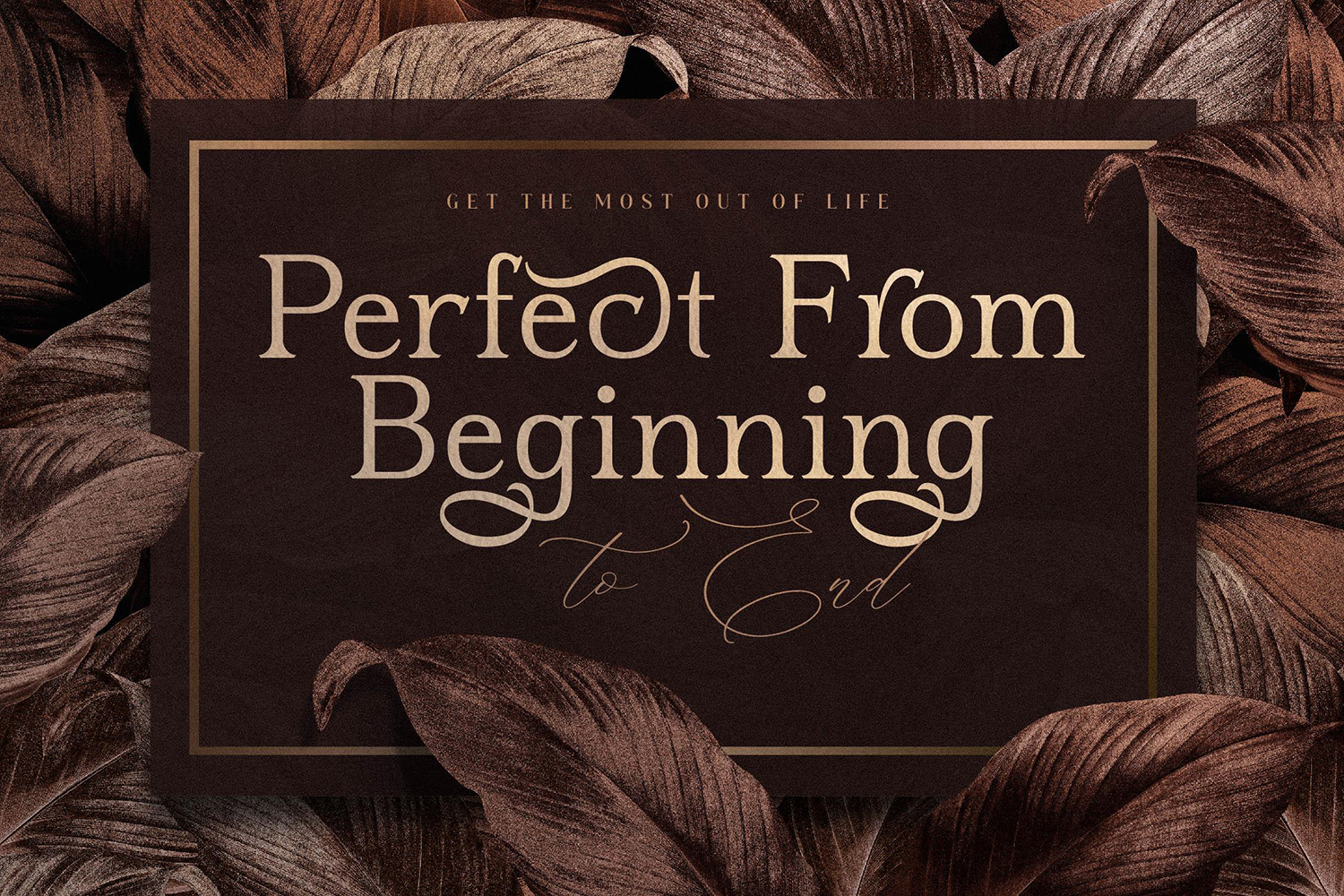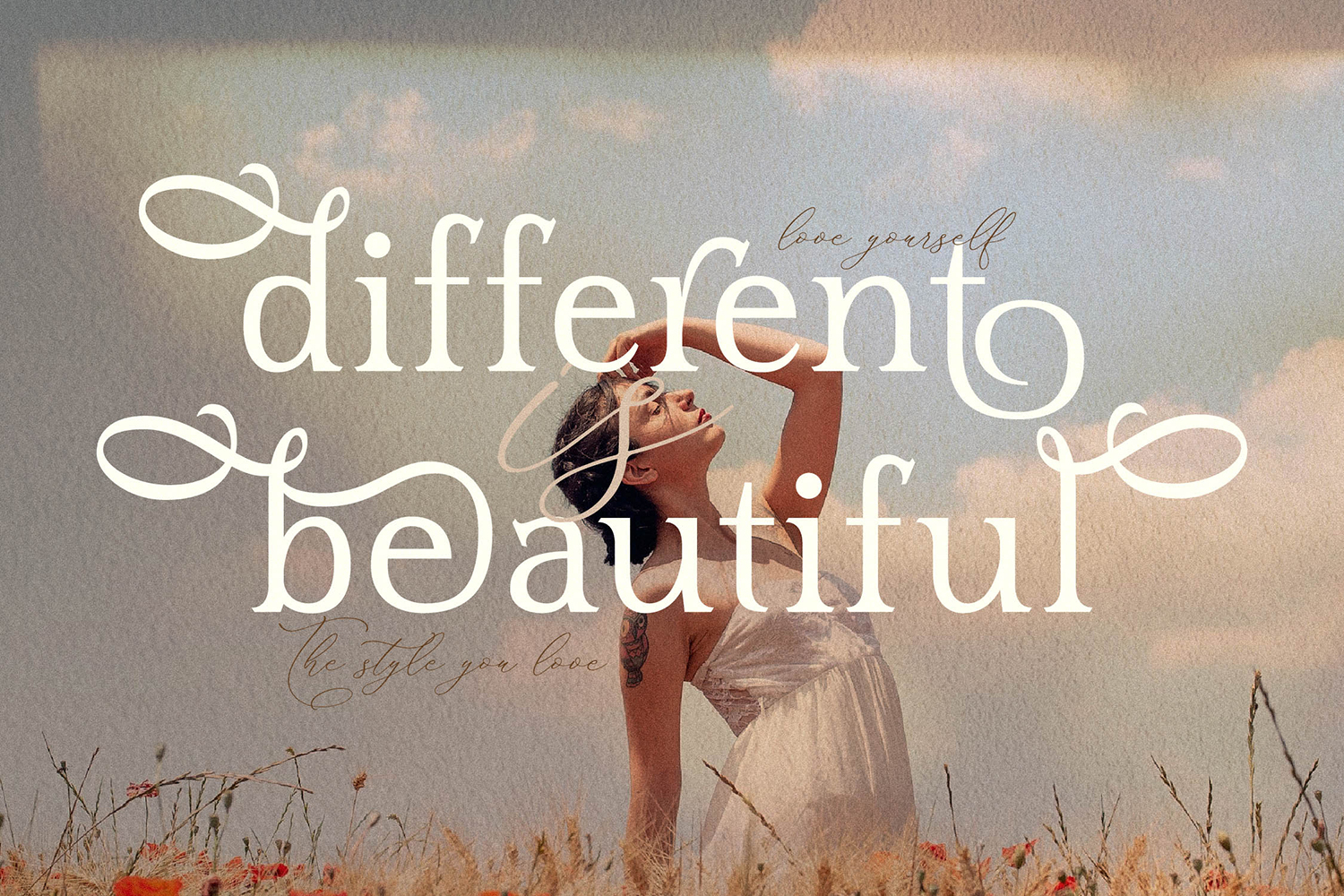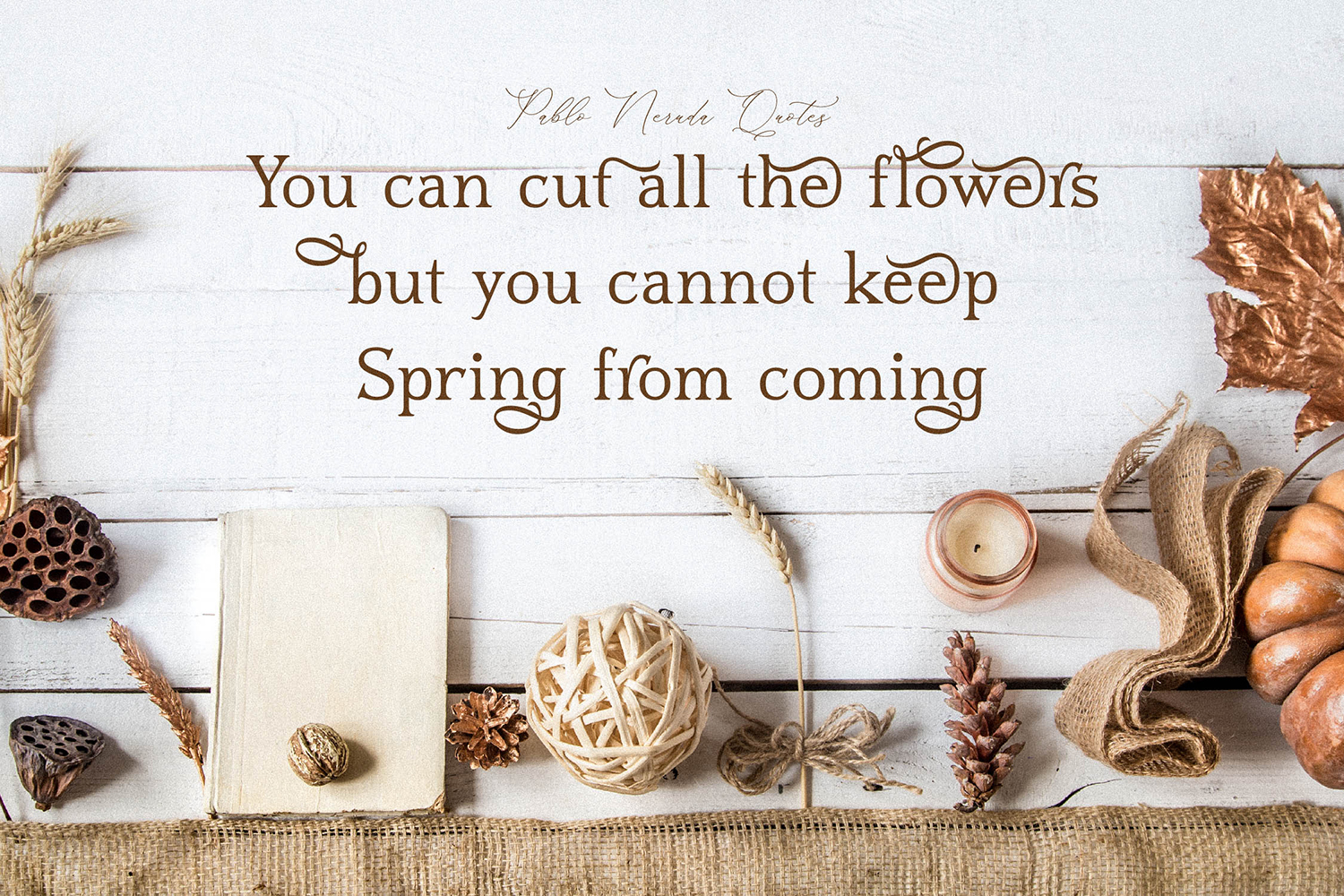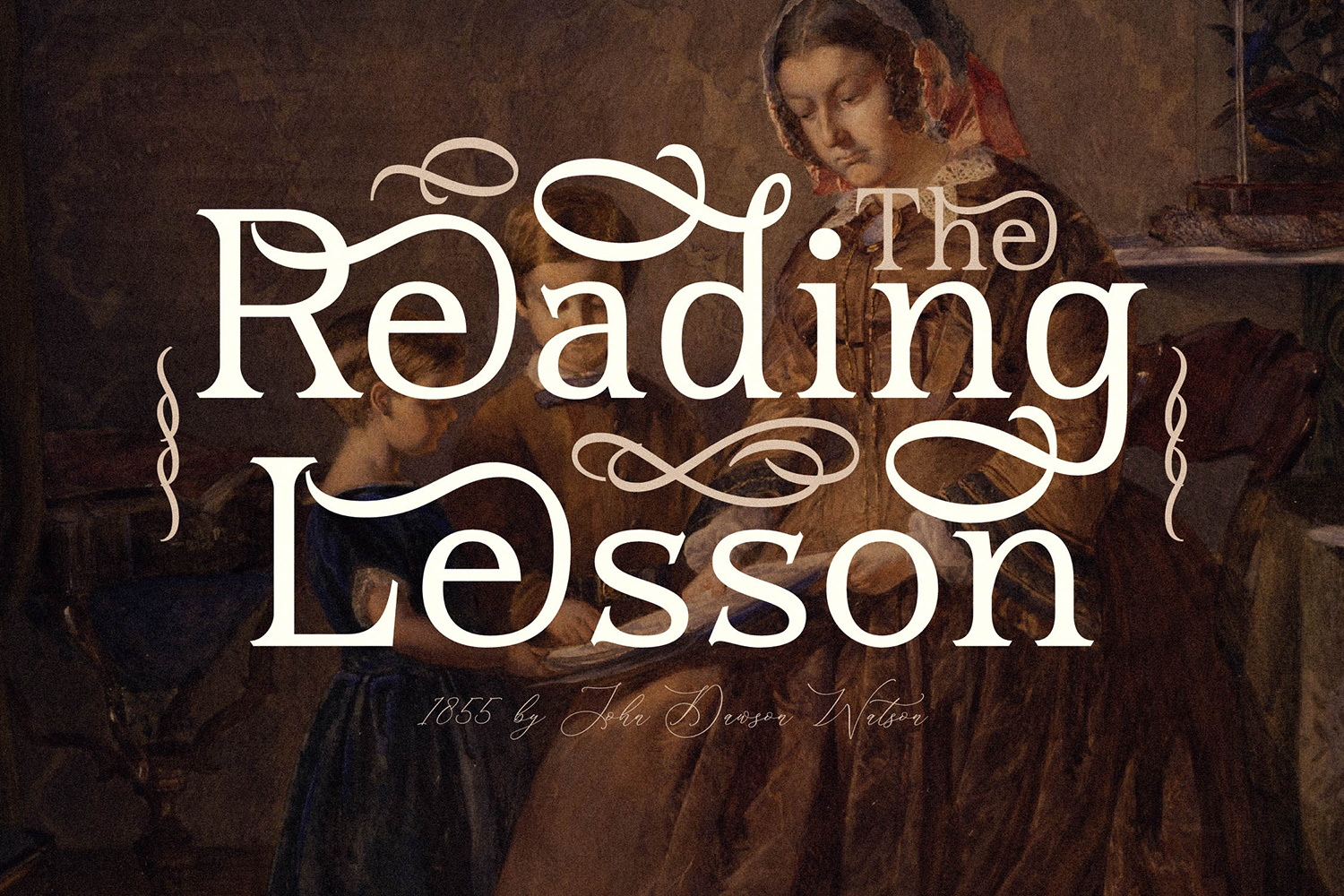
Blusvery Free Font
Looking for a modern and classic font that’s perfect for adding an elegant and luxurious touch to your design projects? Look no further than Blusvery! This unique serif typeface has a modern look and its own distinctive style that’s sure to make your designs stand out. With its versatility and elegance, Blusvery is the perfect choice for designing logos, book or movie titles, fashion brands, magazines, clothes, and more. Whether you’re creating lettering or quotes, Blusvery is sure to add a touch of sophistication to your designs. So why wait? Download Blusvery today and take your design projects to the next level with its modern and classic style.